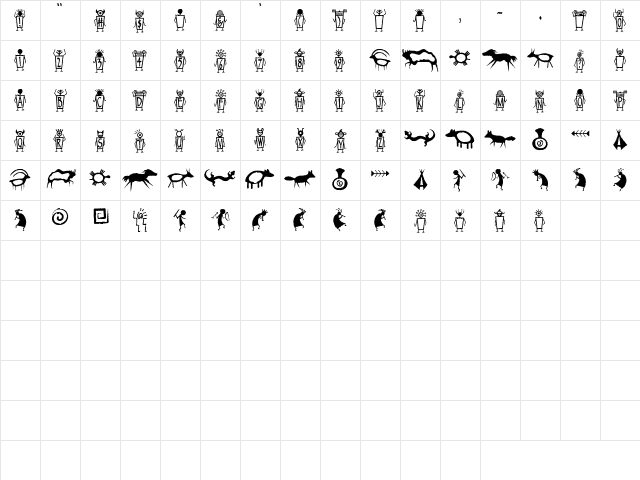
CK Glyph Regular
Design Context for CK Glyph
CK Glyph is a composed and adaptable typeface that performs quietly and consistently across a wide range of design contexts.